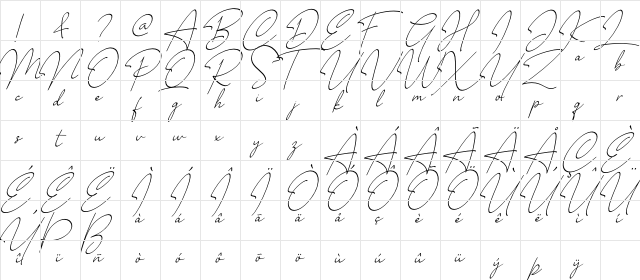
Millano Regular
| Designer | Sronstudio |
Design Context for Millano Typeface
Millano is a composed and adaptable typeface that performs quietly and consistently across a wide range of design contexts.